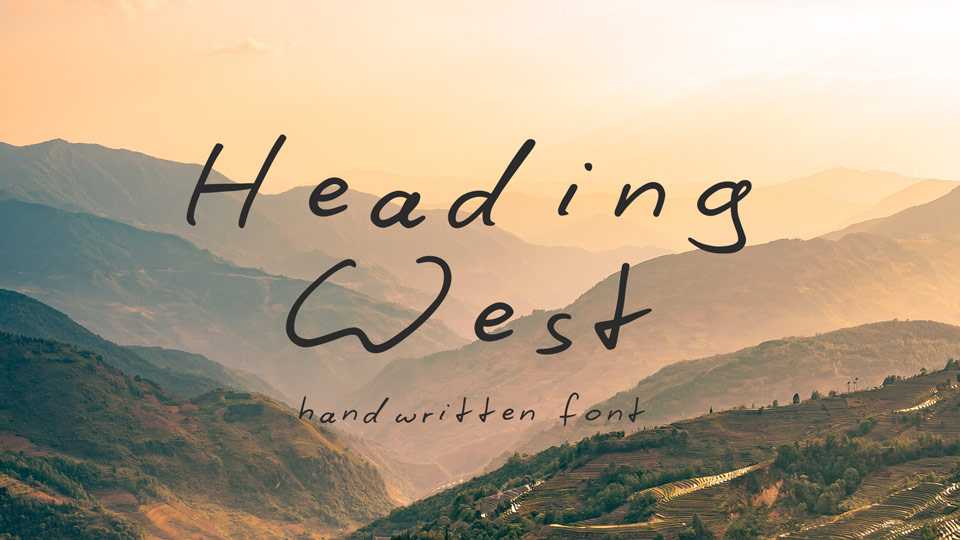
Download Heading West font, a casual handwritten font with a personal touch. Headling West font is suitable for cards, letters, notes, quotes, blogs, social media and more.
Designer: Stephan Wagner